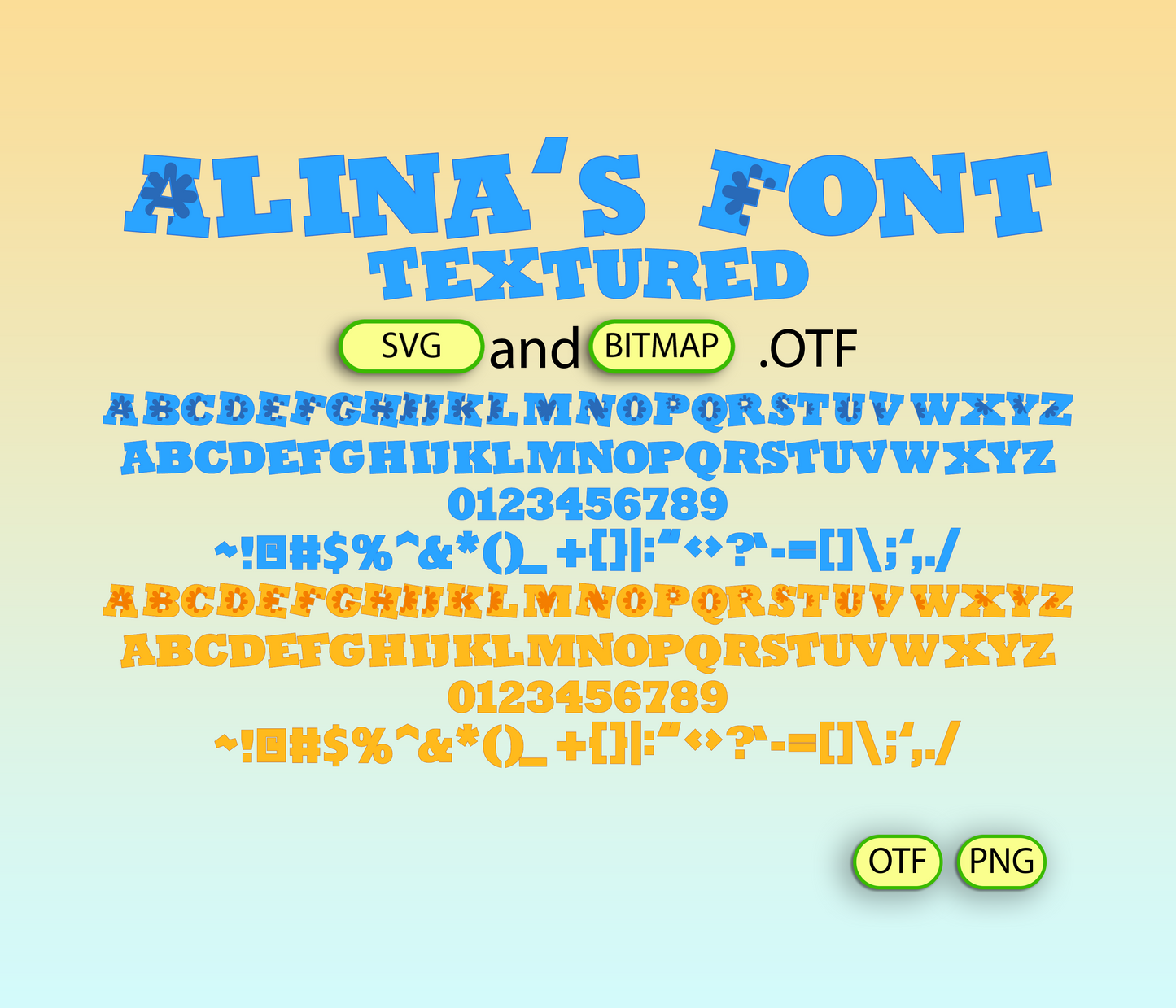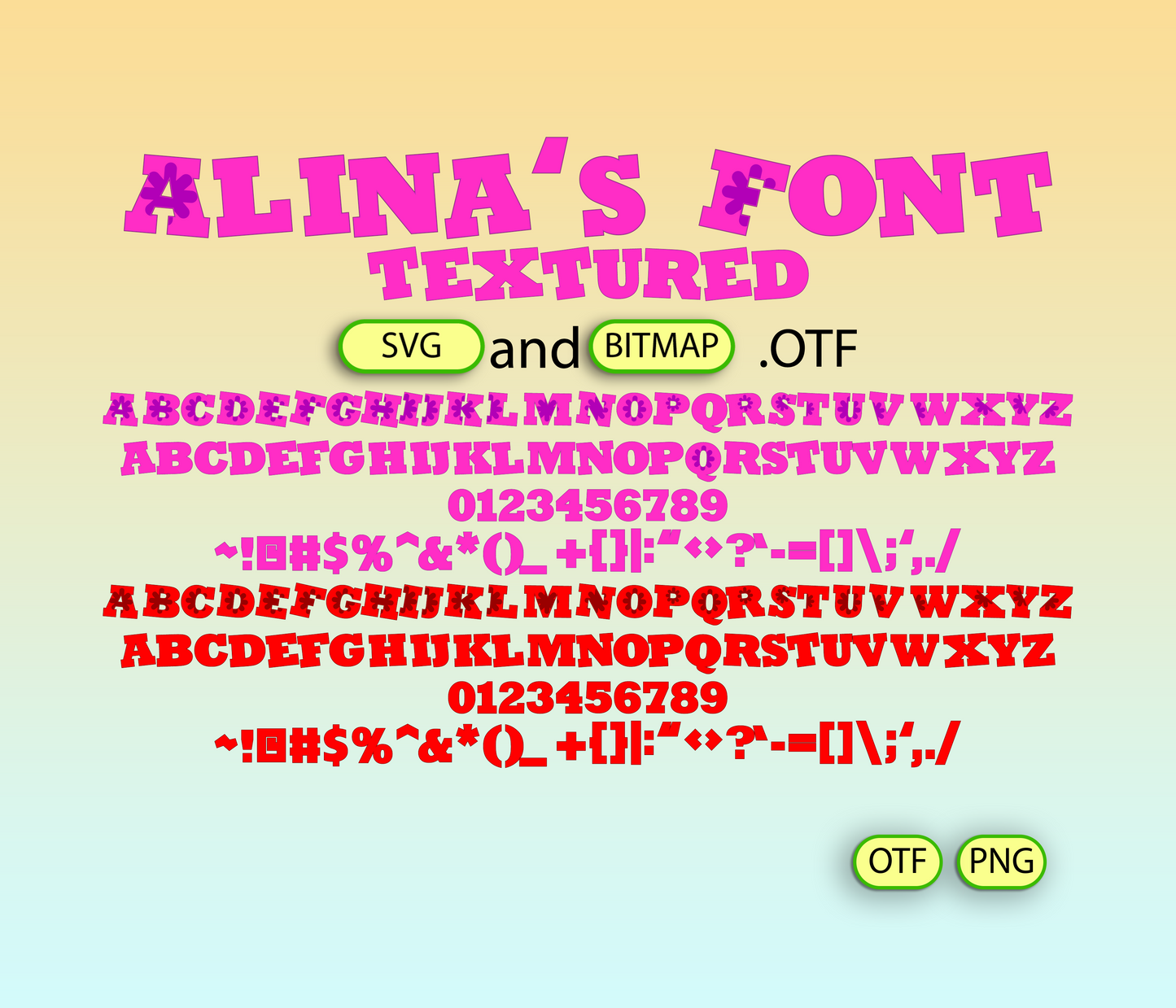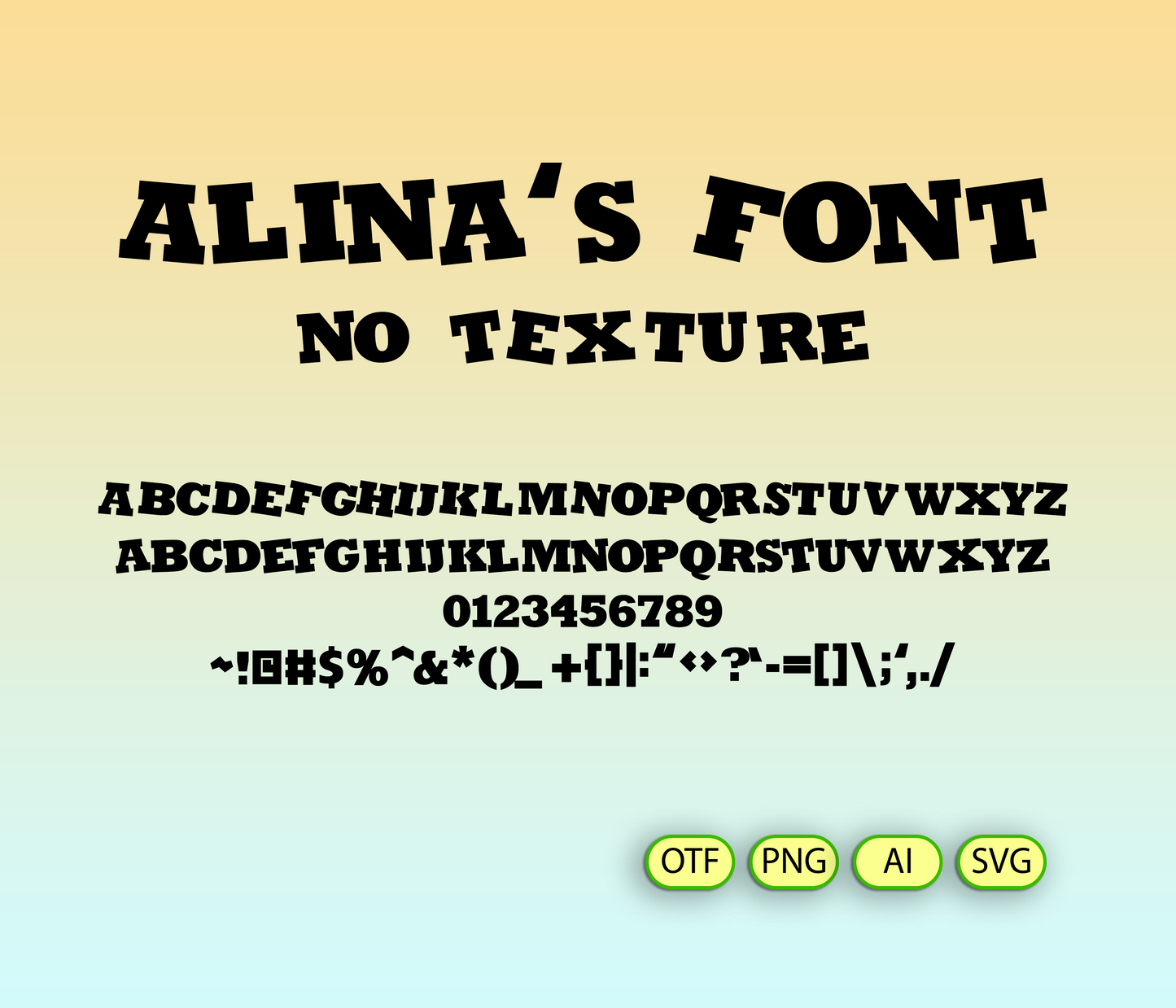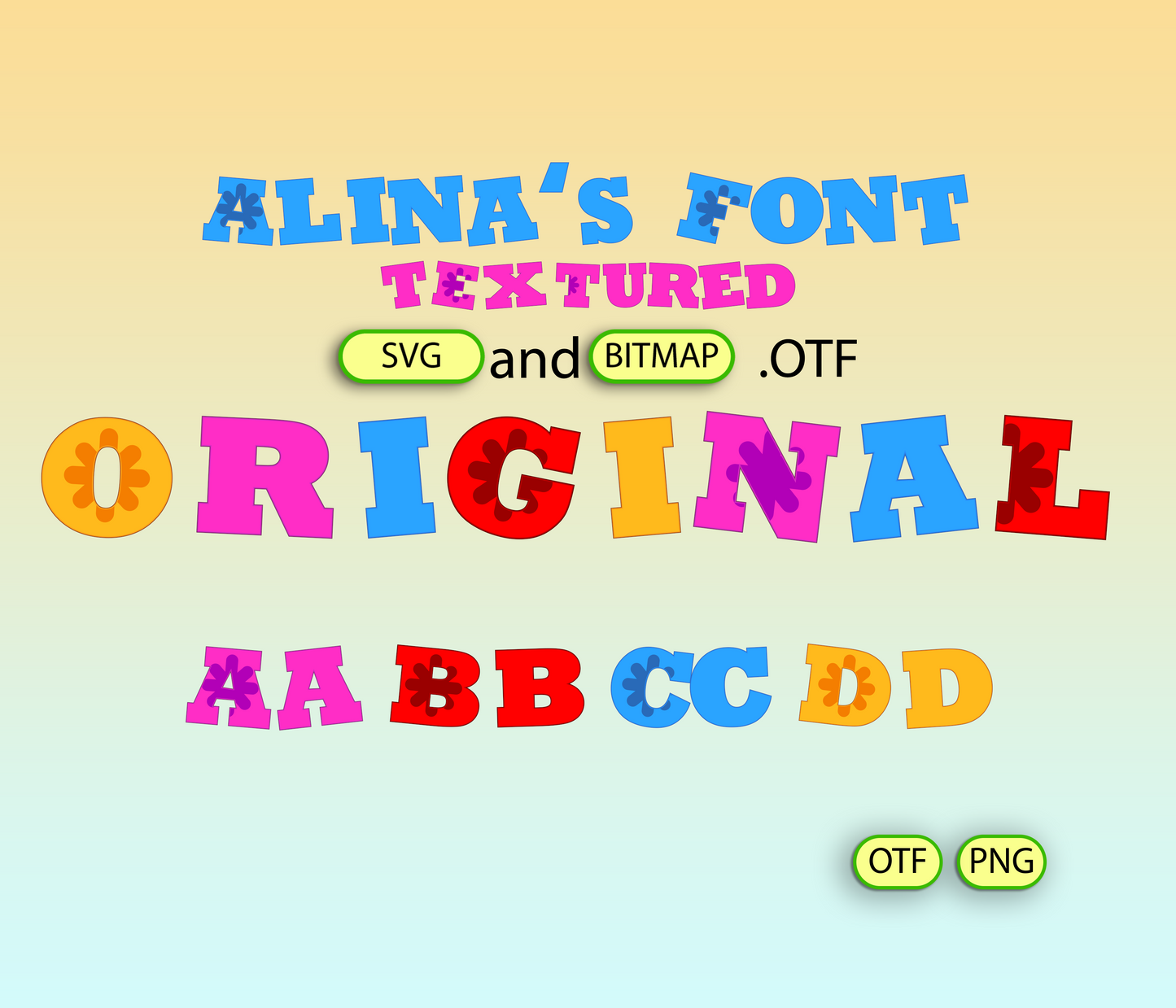
Festive Folklore Fonts Textured Big Bundle
Festive Folklore Fonts Textured Bundle
Unveil a font inspired by the whimsical charm and vibrant culture showcased in beloved animated tales of family and tradition. Our Festive Folklore Colored Font is meticulously designed to bring magical storytelling straight to your Cricut machine. The textured details and lively hues of this font offer a splendid blend of aesthetic allure and functionality, making it a prime choice for various crafting endeavors.
Whether you're crafting charming cake toppers, eye-catching birthday invitations, or unique apparel, this font ensures each creation captivates with a touch of enchantment. Its seamless compatibility with Cricut machines facilitates the incorporation of this font into your crafting projects, melding creativity with ease-of-use effortlessly.
The Festive Folklore Colored Font is more than just a typeface; it's an invitation into a realm of imagination, resonating with heartwarming narratives of cultural celebration. Its diverse character set and robust design make it an ideal choice for those looking to infuse a dash of storytelling charm into their creations.
Elevate your crafting projects to a new level of creativity and storytelling with this distinctive font, letting every craft narrate a beautiful story. Perfect for designs inspired by colorful cultural festivities, family gatherings, or any project that needs a touch of vibrant, animated charm.